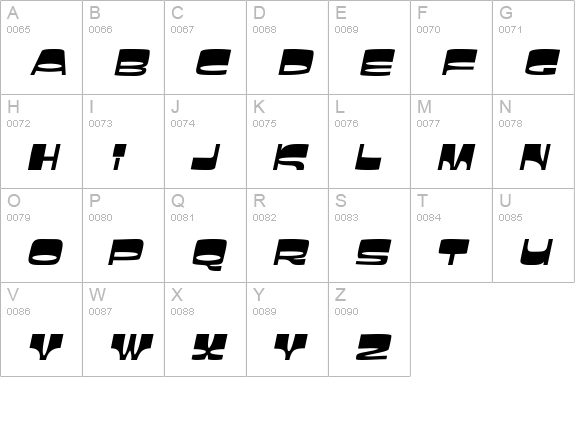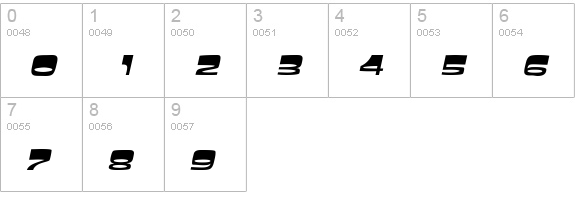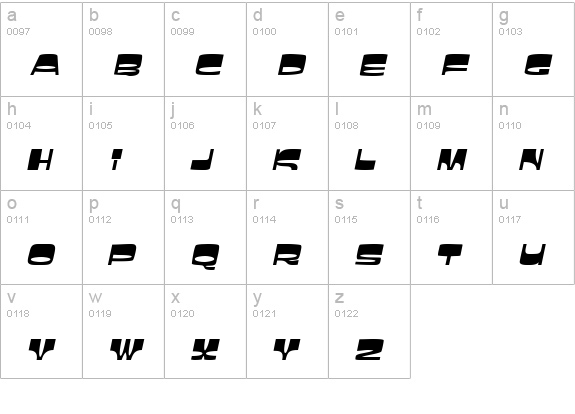
Sunbelt Italic is a distinctive, italic variant in the Sunbelt typeface family \xE2\x80\x94 well suited to design and typography projects.
Sunbelt Italic is a modern and elegant font that exudes sophistication and style. With its sleek and slanted design, this typeface adds a touch of flair to any project or design. The italicized characters give a sense of movement and fluidity, making Sunbelt Italic perfect for conveying a sense of dynamism and energy. What makes Sunbelt Italic even more appealing is that it is available for free download at FontsMarket.com. Whether you are working on a personal project, a business presentation, or a creative endeavor, Sunbelt Italic is the perfect choice to make your text stand out and leave a lasting impression. Add a touch of elegance and charm to your designs with Sunbelt Italic font, and see how it transforms your work into a masterpiece.